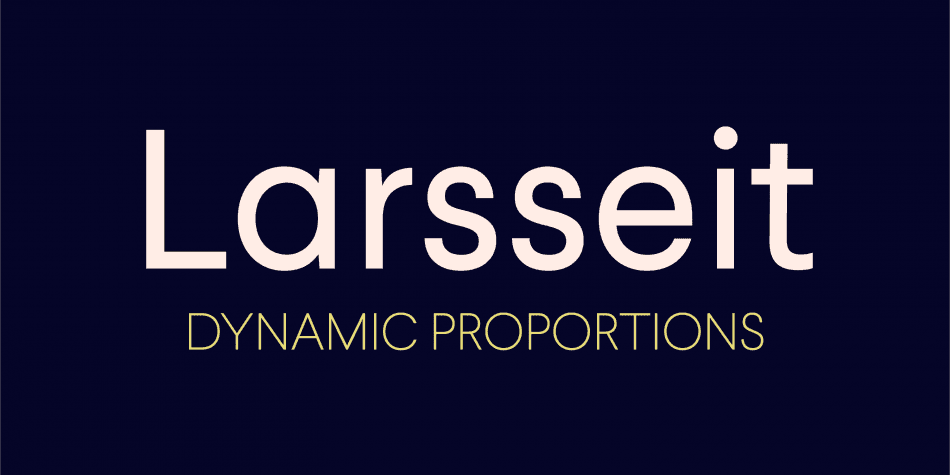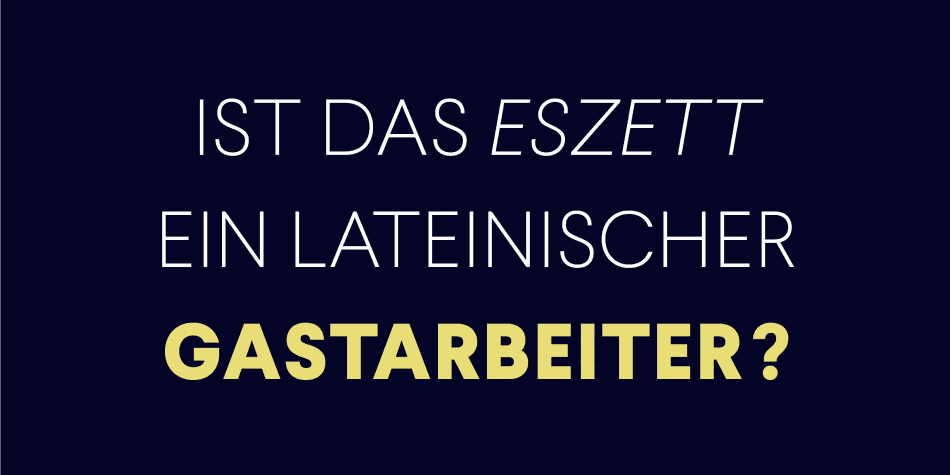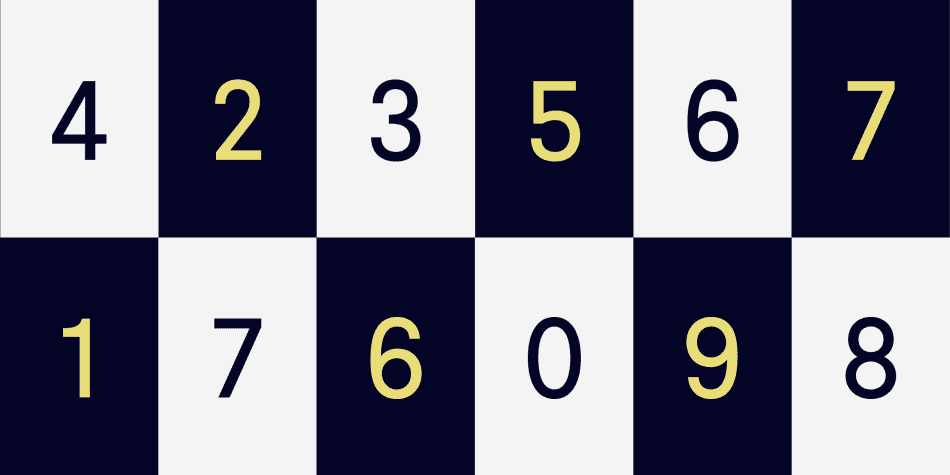
Larsseit can be defined as a font family that blends classic proportions with very low contrast levels for maximum readability, clarity and objectivity. Larsseit encompasses six weights that span from UltraThin to Black along with their respective italics and Small Caps counterparts.